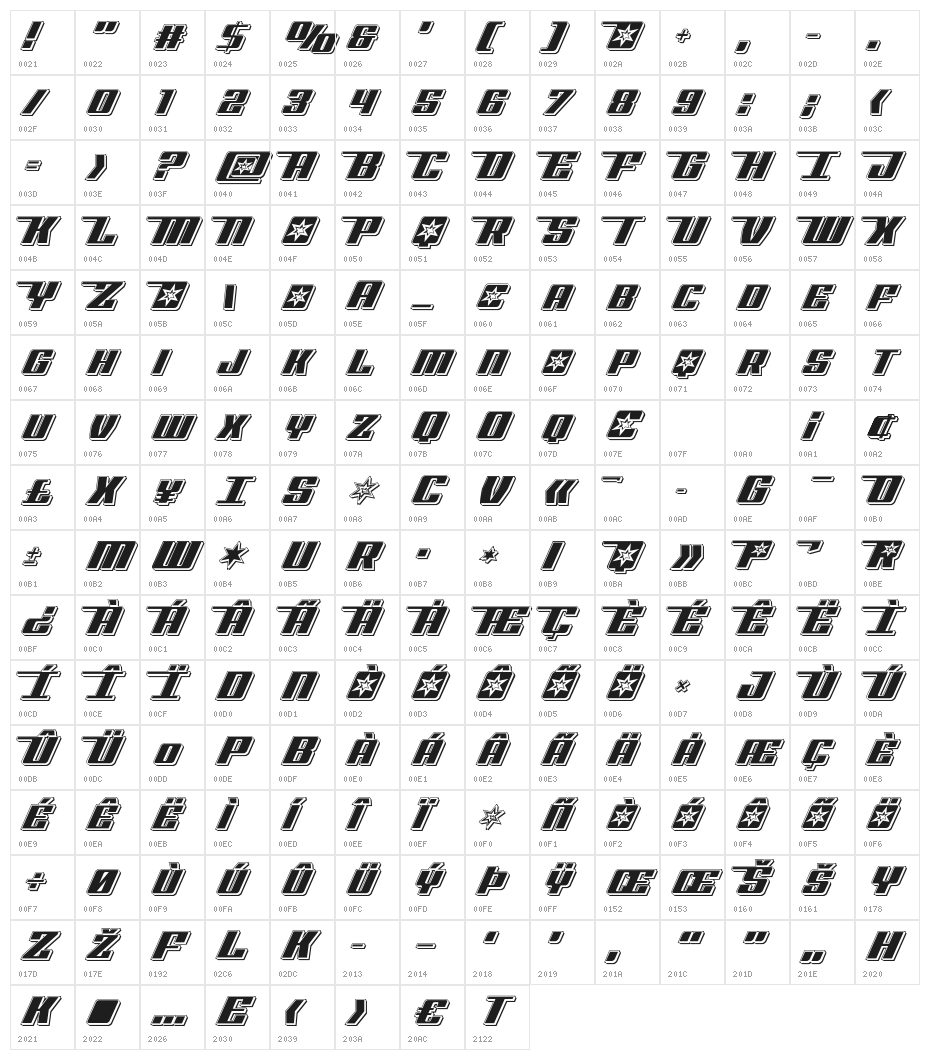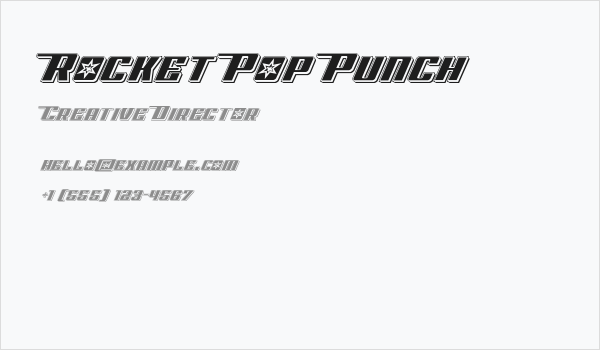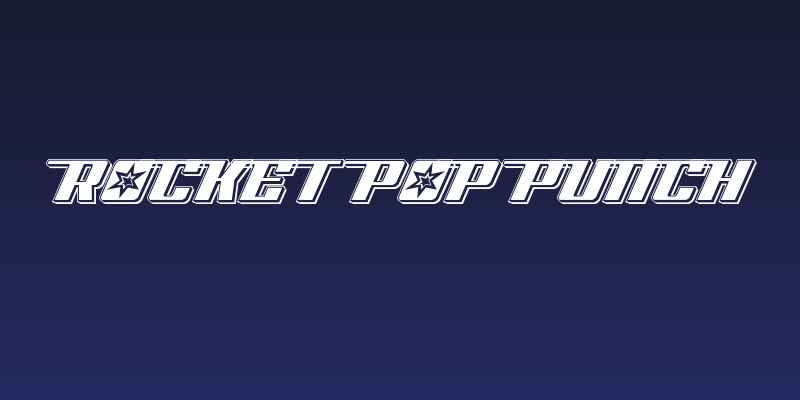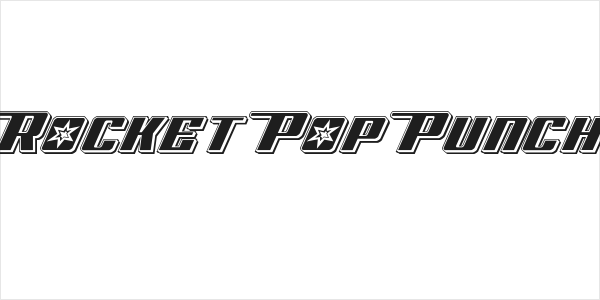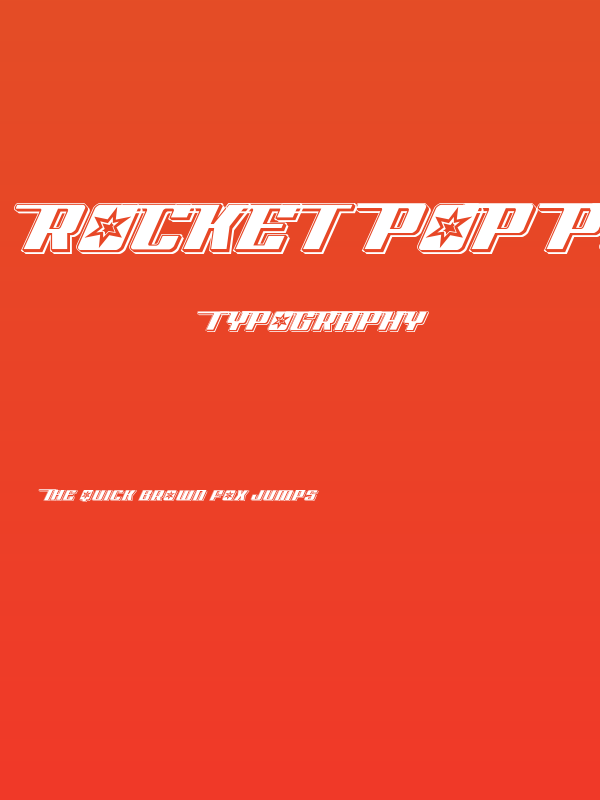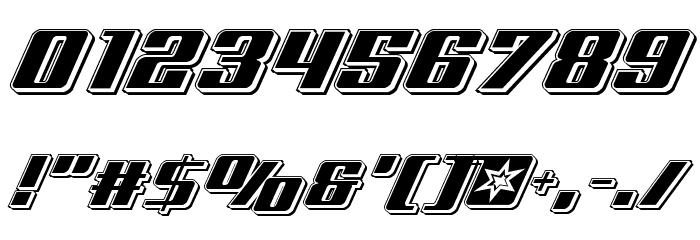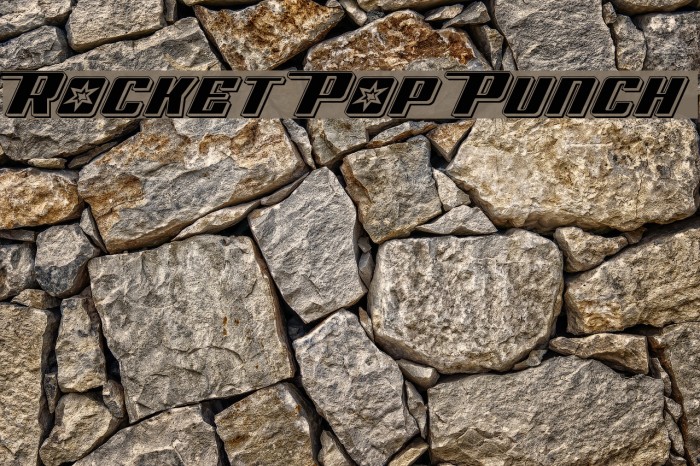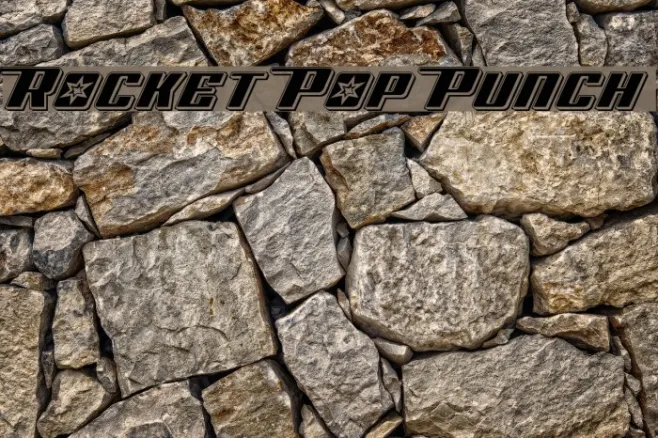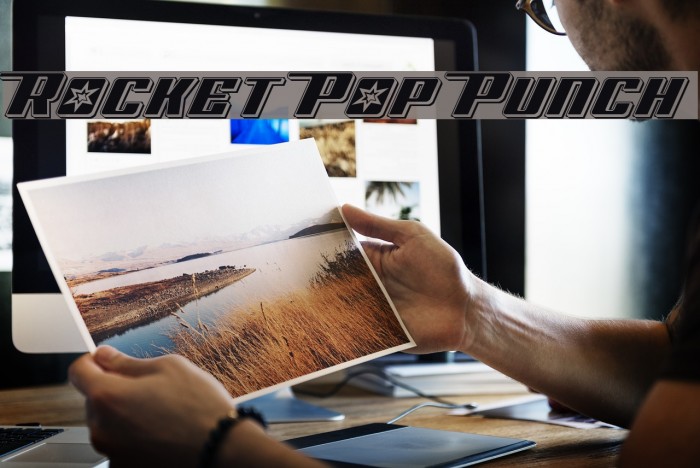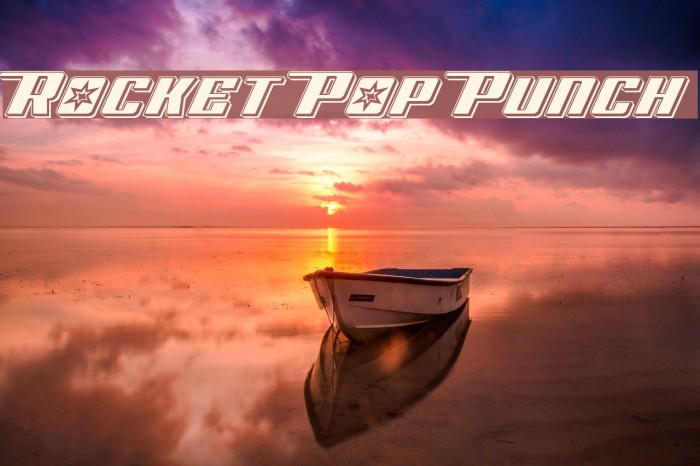
Rocket Pop Punch Font
Rocket Pop Punch Description
This bold, dynamic font features a futuristic and energetic style, characterized by its thick, angular letterforms and a distinct outline that adds depth and dimension. The uppercase letters are particularly striking, with some characters incorporating star motifs, enhancing the font's playful and adventurous feel. The numbers and special characters maintain the same robust design, ensuring consistency across all elements. This font's unique style makes it ideal for projects that require a strong visual impact.
| Overall Style | Futuristic, Energetic |
| Proposed Projects | Ideal for use in posters, video game titles, branding for energetic products, and any design needing a bold, futuristic look. |